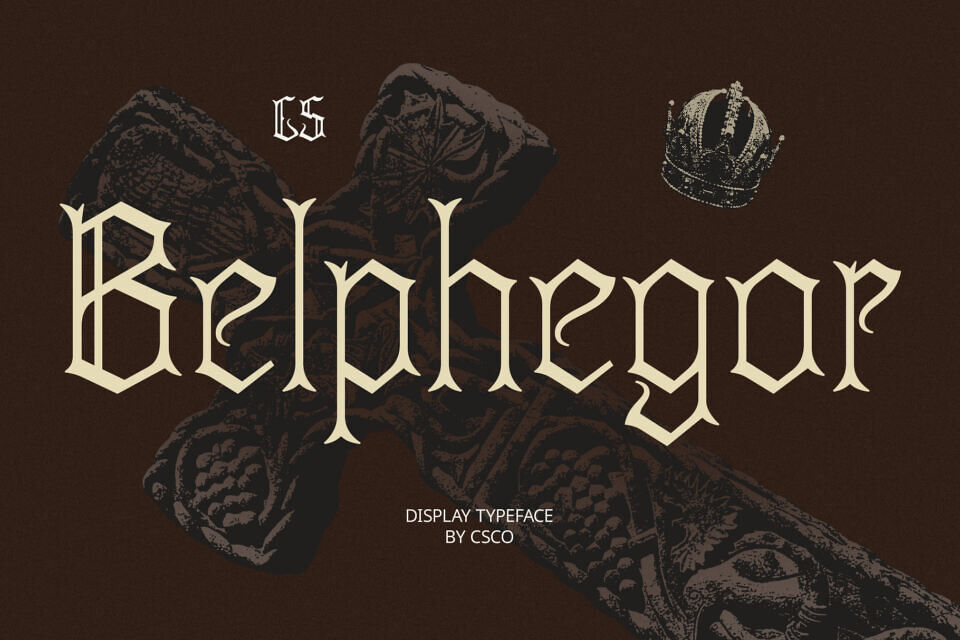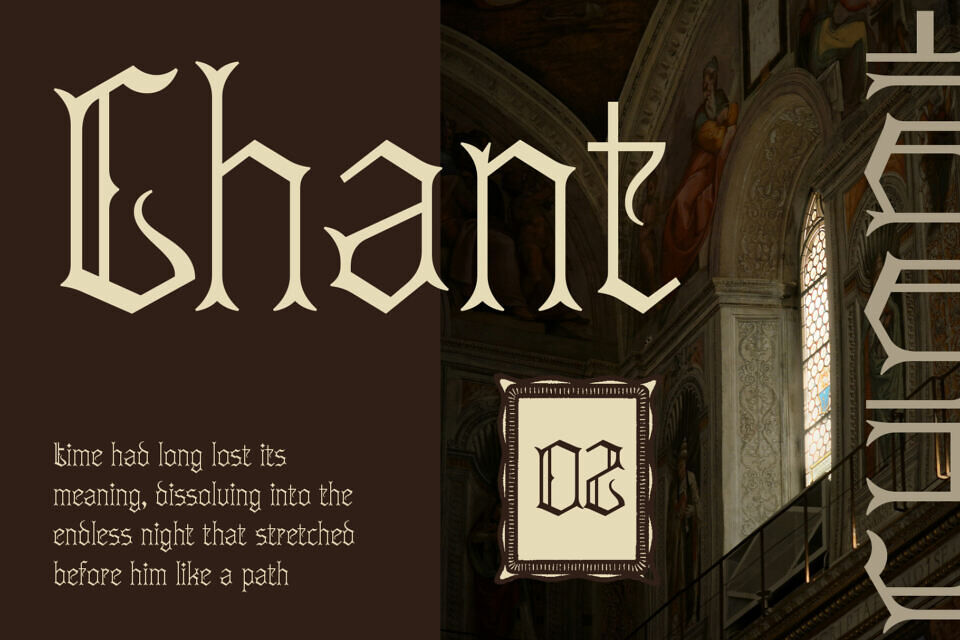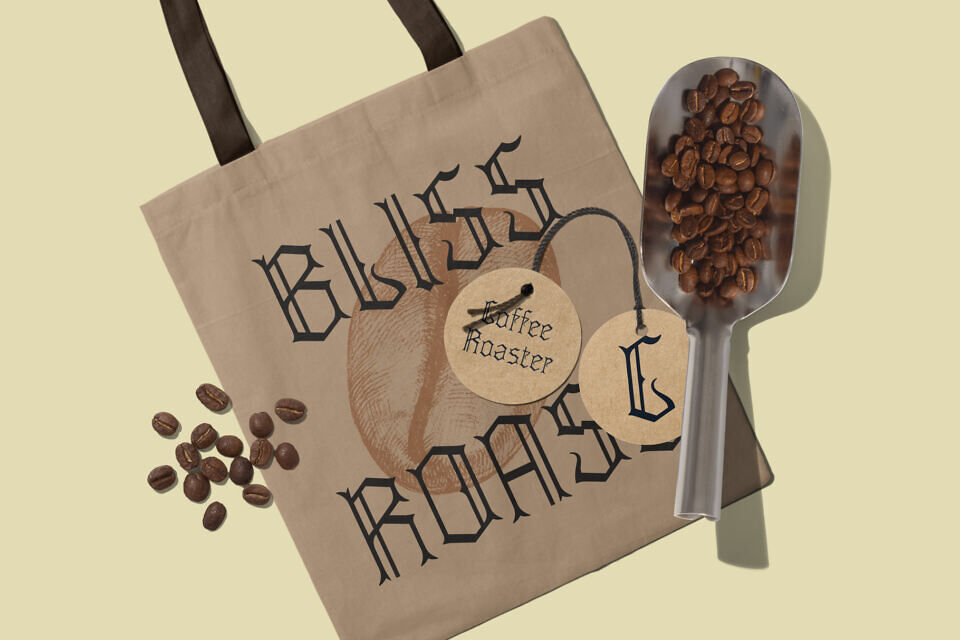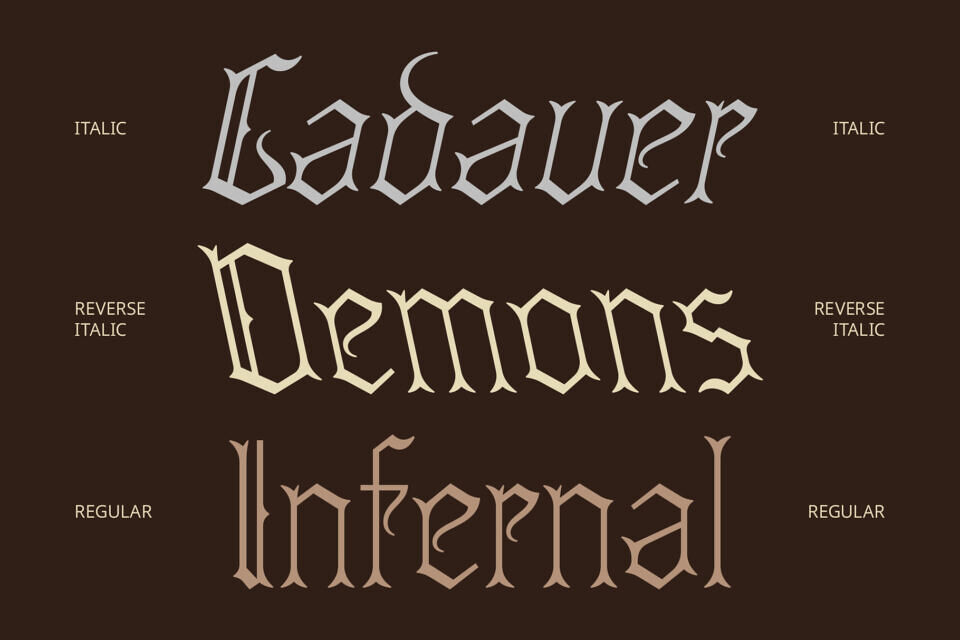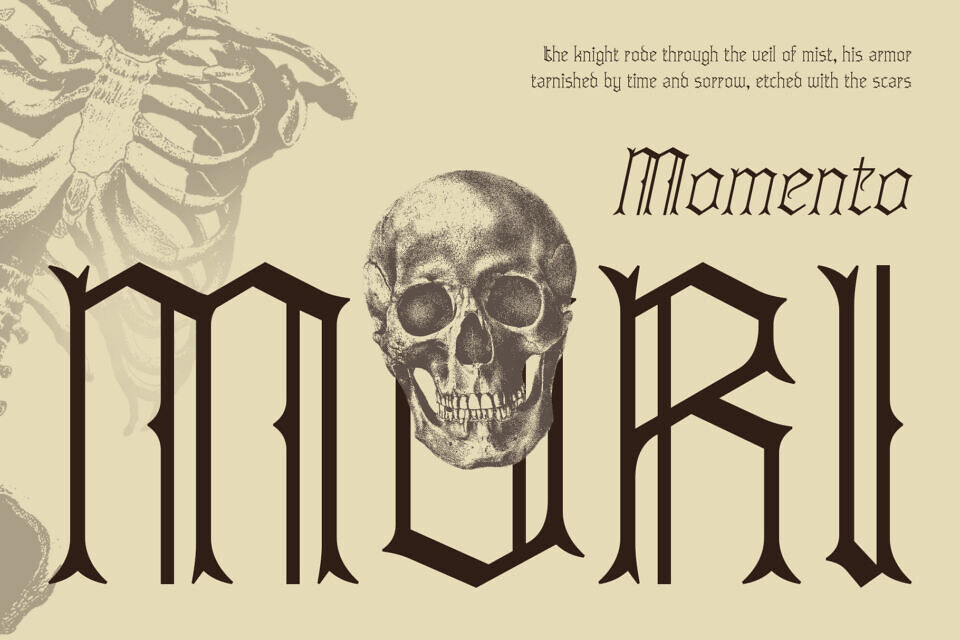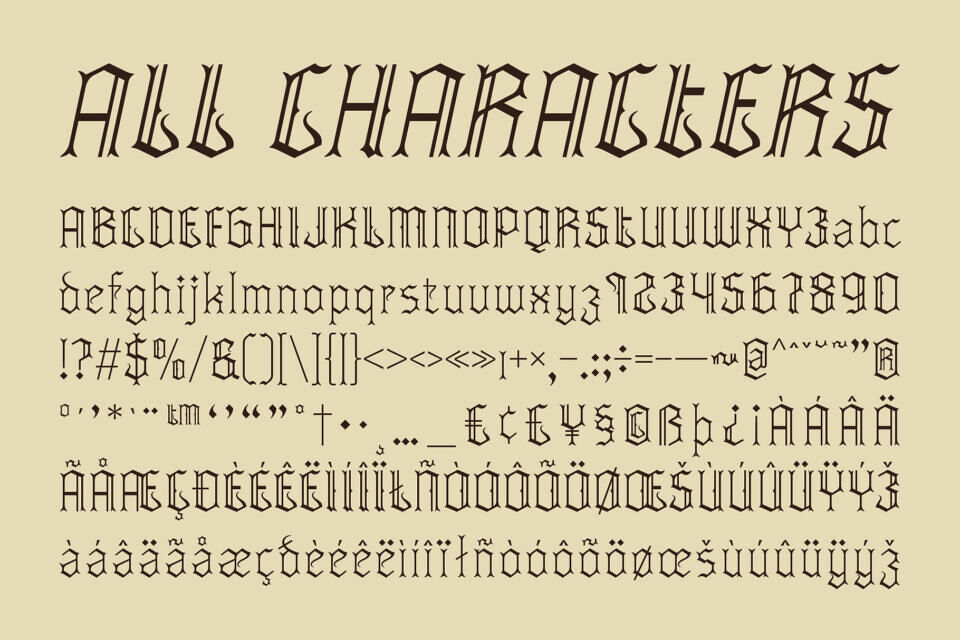
CS Belphegor Font
CS Belphegor is a modern gothic display font featuring thin, sleek lines that expertly merge classic dark elegance with contemporary minimalism. Its refined and slender design delivers a subtle yet bold statement, making it perfect for projects seeking an edgy, sophisticated, and mysterious look.
With its delicate strokes, sharp edges, and balanced proportions, CS Belphegor creates a slender, graceful silhouette that effortlessly balances an aura of mystery with modern clarity. This elegant linework makes it ideal for high-end fashion branding, editorial layouts, book covers, and artistic visuals that require both subtlety and strength.
Inspired by traditional gothic letterforms, the font embraces a moody and dramatic character while infusing clean, minimalist aesthetics. This intriguing contrast revitalizes gothic themes with a fresh, stylish, and contemporary feel—perfect for designers who want to bring sophistication to dark and bold concepts.